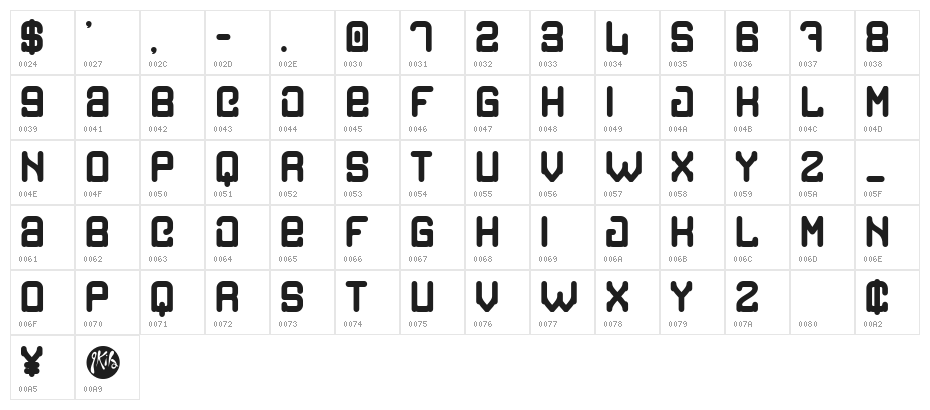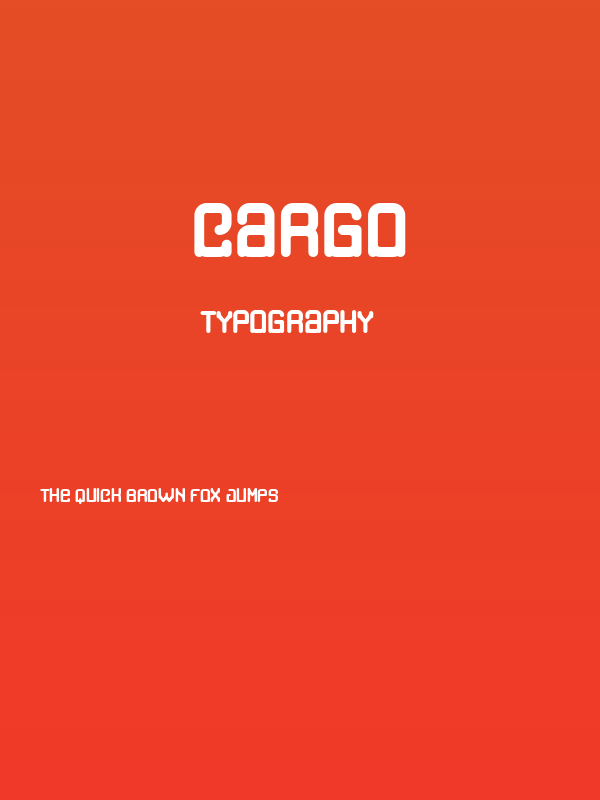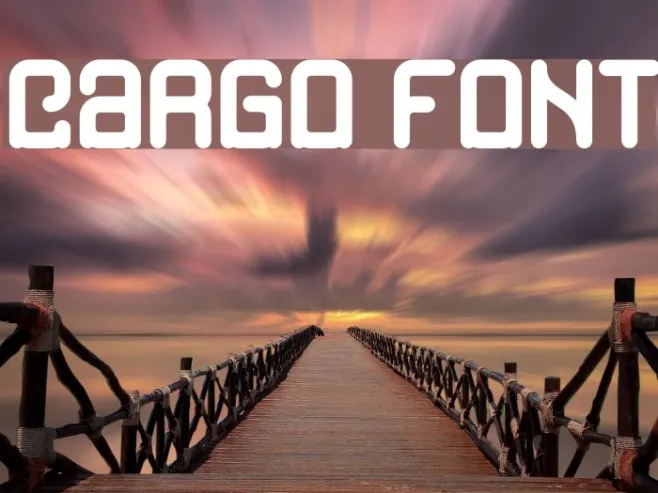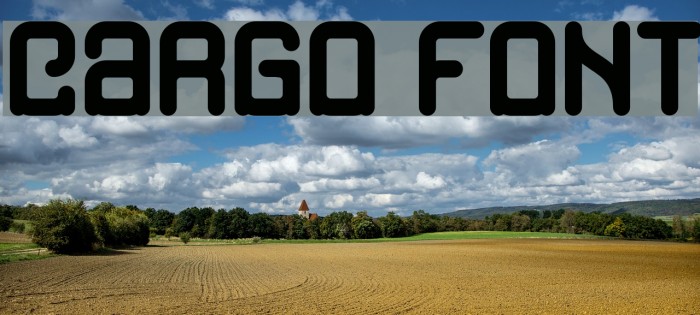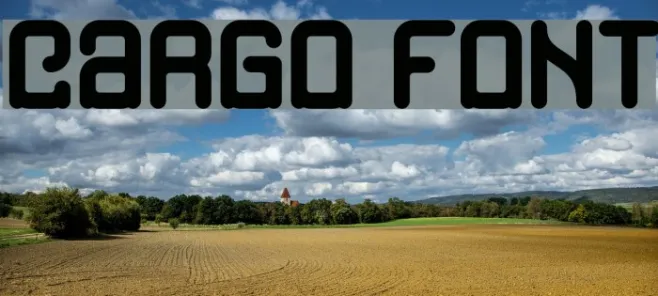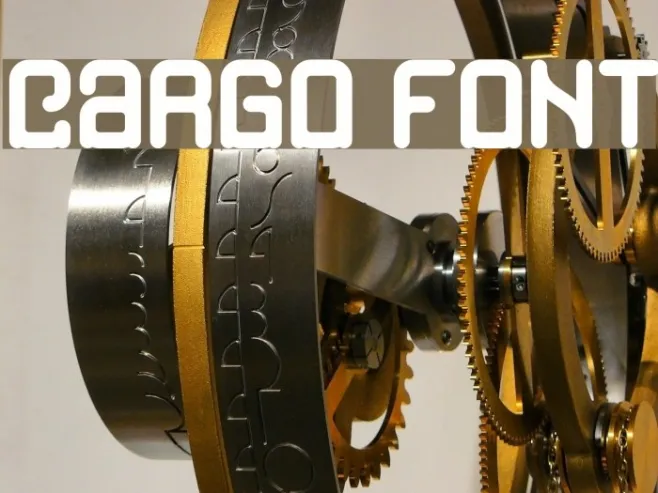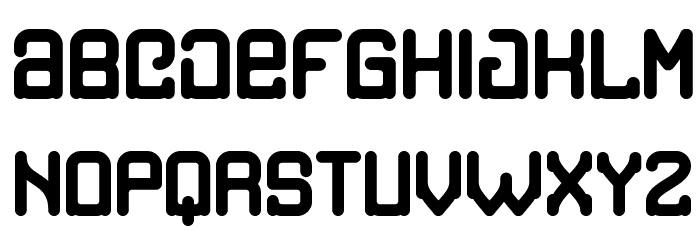
Cargo Font
Cargo Description
This font features a bold, rounded style with a modern and industrial feel. The characters are uniformly thick, creating a strong visual impact. The rounded edges and consistent stroke width give it a friendly yet robust appearance. The uppercase and lowercase letters maintain a cohesive look, while the numbers and special characters complement the overall design. The font's geometric structure and smooth curves make it suitable for a variety of applications where a contemporary and approachable aesthetic is desired.
| Use Case | Headlines, Logos, Signage |
| Proposed Projects | Ideal for branding, signage, packaging, and digital interfaces where a modern and approachable look is needed. |